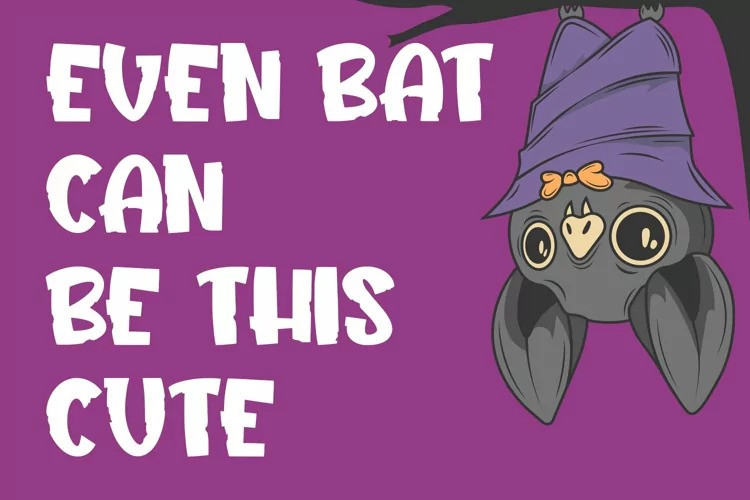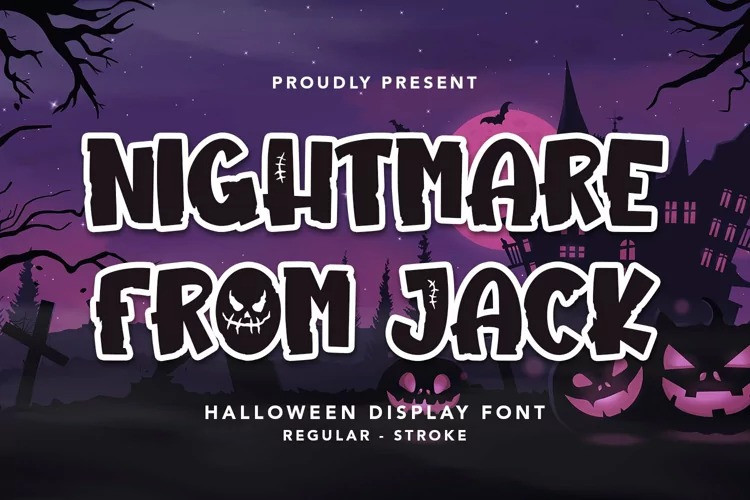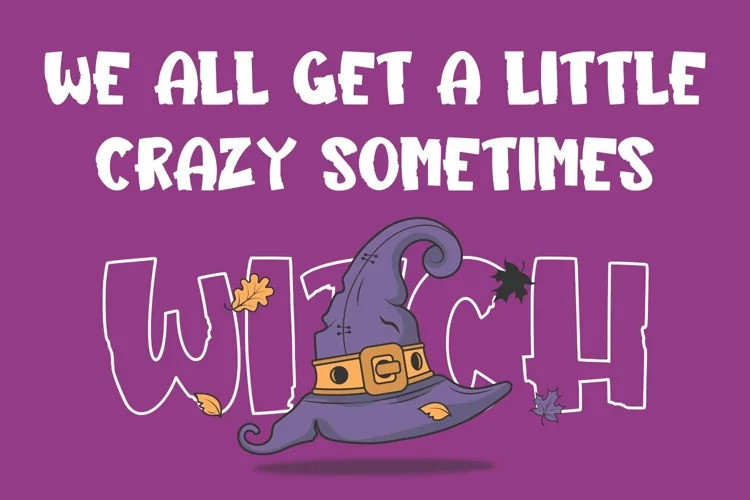
Nightmare From Jack Font
Nightmare From Jack – Halloween Display Font that contain lowercase, uppercase, symbol, and also support multi language. There’s a lot ligatures in this font. This Font also comes with ligatures, alternates and many more. this font suitable for fashion, branding, catalog and other design what you want.